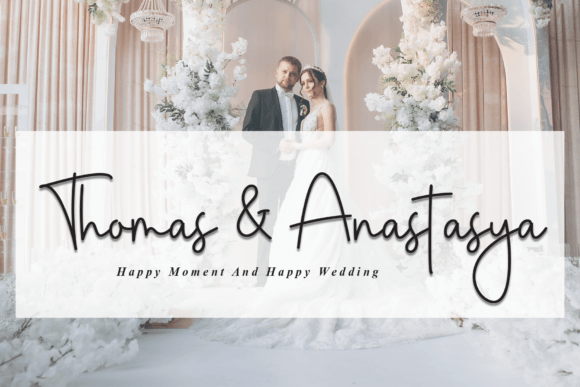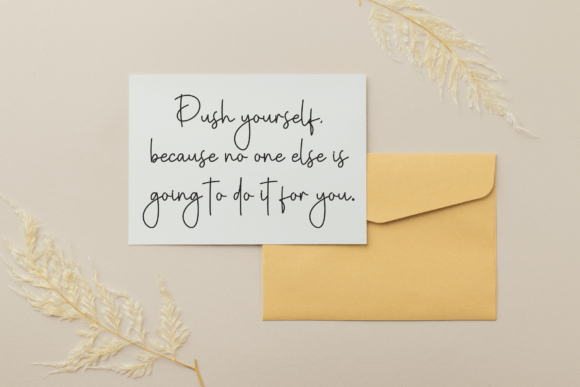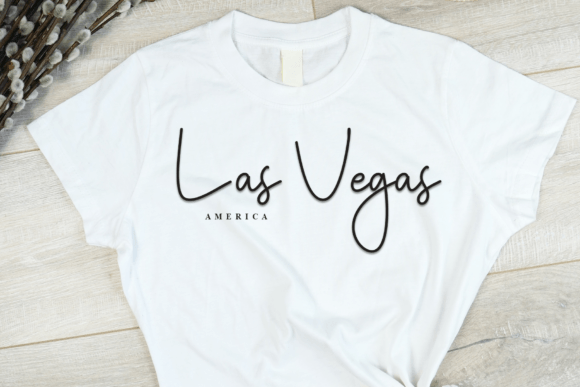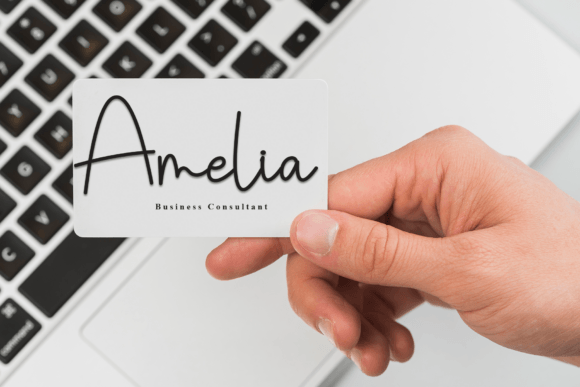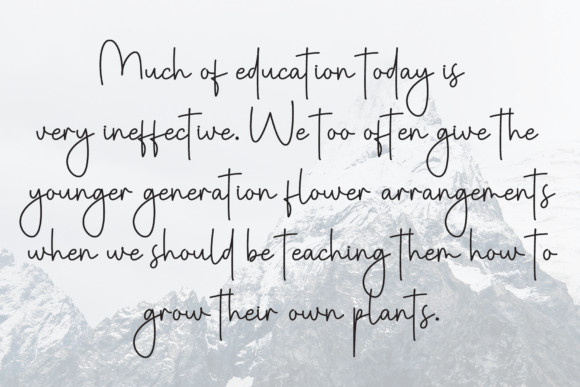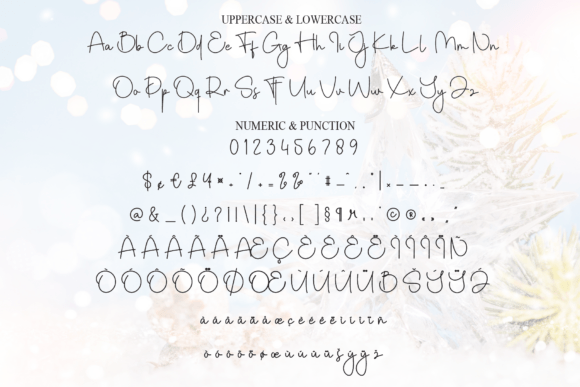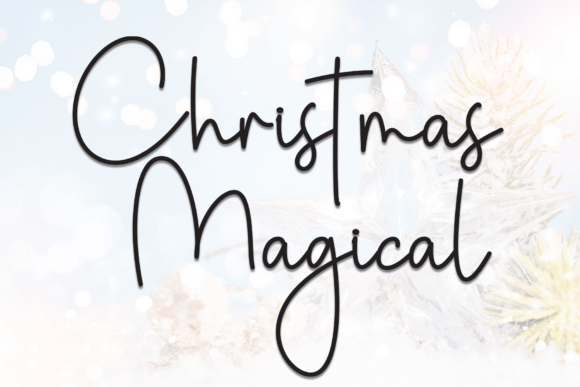
Introducing Christmas Magical Font: The Ultimate Elegance for Your Designs
Are you looking for a font that adds a touch of magic to your designs? Look no further than the Christmas Magical Font, a stylish handwritten script font that exudes elegance and charm with its flowing, graceful curves. Perfect for invitations, logos, and branding, this font is sure to bring a personal and sophisticated touch to any design.
The Characteristics of Christmas Magical Font
Christmas Magical Font is a beautifully crafted font that boasts a range of characteristics that make it perfect for designers and crafters. Some of its key features include:
- Flowing, graceful curves: The font’s smooth, flowing curves give it a sense of elegance and sophistication, making it perfect for designs that require a touch of luxury.
- Delicate strokes: The font’s delicate strokes bring warmth and creativity to your projects, adding a personal touch that’s sure to make your designs stand out.
- Handwritten script: The font’s handwritten script style gives it a personal, human touch that’s perfect for designs that require a sense of personality and charm.
Uses for Christmas Magical Font
Christmas Magical Font is a versatile font that can be used for a wide range of design projects. Some of the most popular uses for this font include:
- Invitations: Whether you’re designing wedding invitations, birthday invitations, or holiday party invitations, Christmas Magical Font is the perfect choice.
- Logos and branding: The font’s elegant, sophisticated style makes it perfect for logos and branding projects that require a touch of luxury.
- Stationery and greeting cards: Add a personal touch to your stationery and greeting cards with Christmas Magical Font.
- Digital designs: The font is also perfect for digital designs, including social media graphics, blog posts, and website headers.
Why Choose Christmas Magical Font?
So why choose Christmas Magical Font for your designs? Here are just a few reasons:
- Elegance and sophistication: The font’s elegant, sophisticated style makes it perfect for designs that require a touch of luxury.
- Personal touch: The font’s handwritten script style gives it a personal, human touch that’s perfect for designs that require a sense of personality and charm.
- Versatility: The font is versatile and can be used for a wide range of design projects.
Tips for Using Christmas Magical Font
Here are a few tips for using Christmas Magical Font in your designs:
- Pair it with other fonts: Pair Christmas Magical Font with other fonts to create a unique and interesting design.
- Experiment with colors: Experiment with different colors to find the perfect combination for your design.
- Use it sparingly: Use Christmas Magical Font sparingly to add a touch of elegance and sophistication to your design.
Christmas Magical Font is a beautiful, elegant font that’s perfect for designers and crafters who want to add a touch of magic to their designs. With its flowing, graceful curves and delicate strokes, this font is sure to bring a personal and sophisticated touch to any design. Whether you’re designing invitations, logos, or digital designs, Christmas Magical Font is the perfect choice.